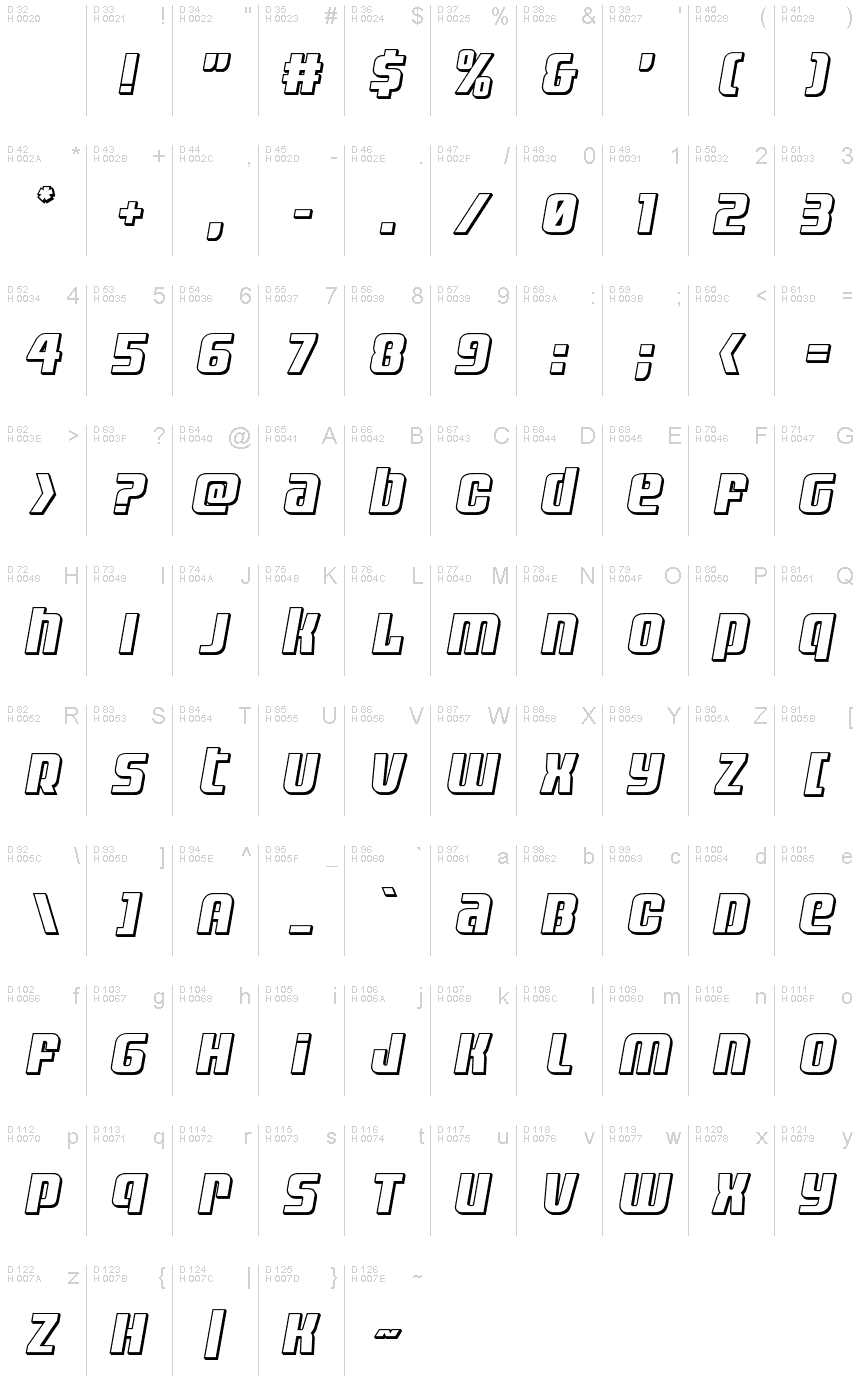
Vanguardian 3D Italic
Vanguardian 3D Italic is a bold and futuristic display font that adds a dynamic edge to any project. The italicized version of the Vanguardian family includes a sleek, condensed design that is perfect for branding, advertisements, and editorial designs. The 3D effect adds a high-tech vibe, perfect for gaming or technology projects. Take your designs to the next level with Vanguardian 3D Italic.